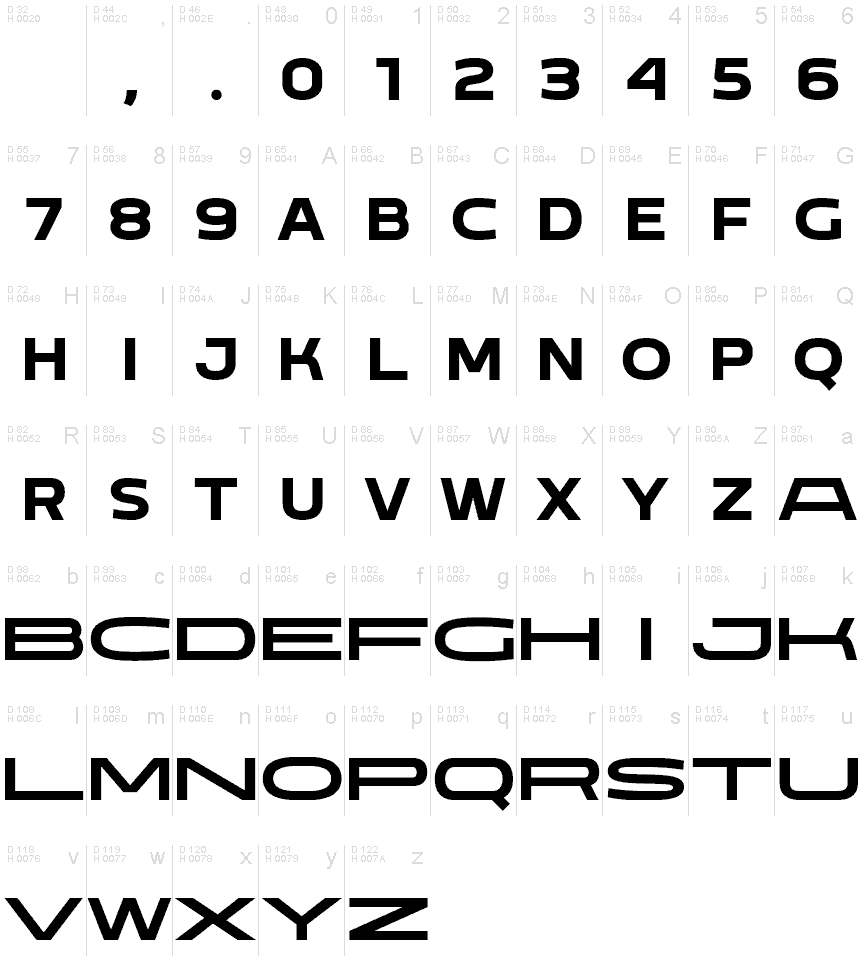
Super Ground
Super Ground font by Genetypeco is a sans serif typeface that captures modernity and innovation with its futuristic, geometric design and clean lines. This expanded font presents a technological feel that's both sleek and chic. Its minimalist forms express an artful elegance that reads well in headlines or body text.